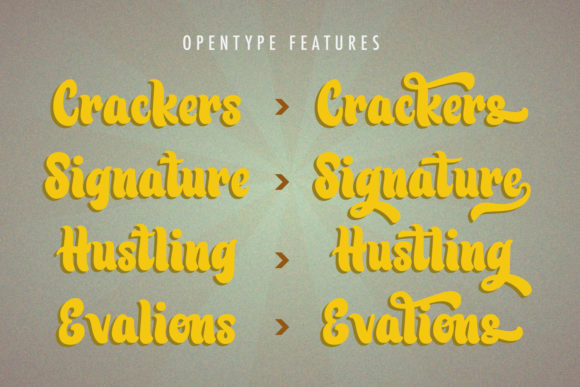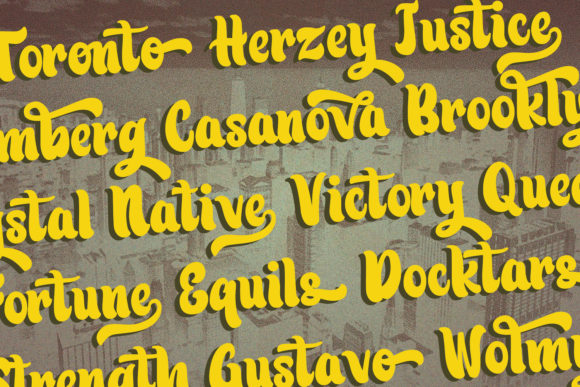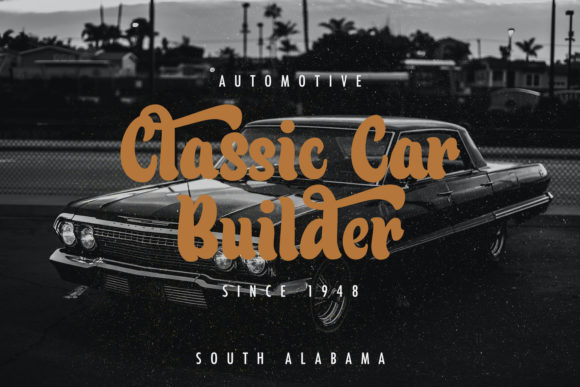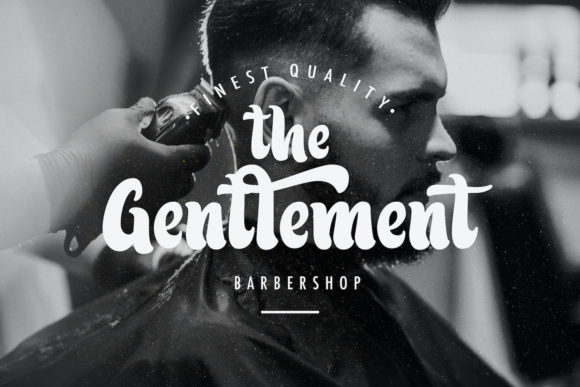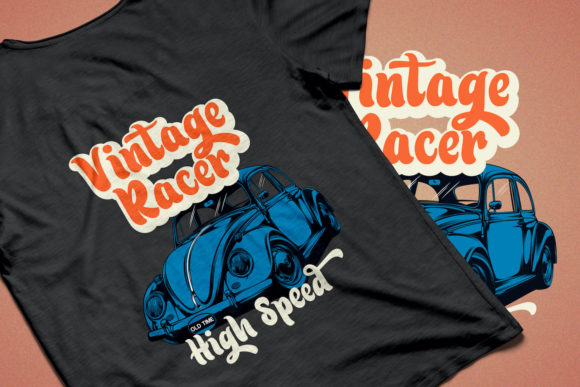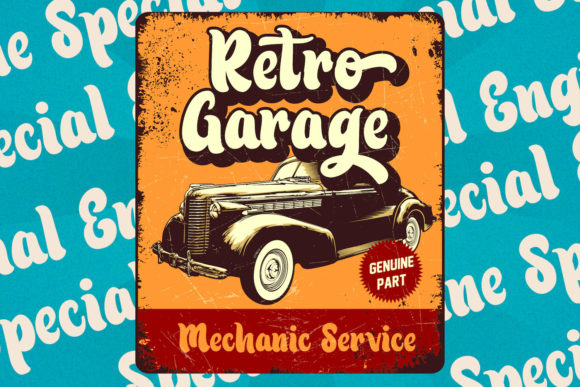
Introduction to Patric Zihva Font
Patric Zihva is a retro, bold script font that has vintage swashes, curved and unique glyphs.
This font is perfect for branding such as logos, watermarks, business cards, brand identity, social media posts, quotes, and wall art .
Key Features of Patric Zihva Font